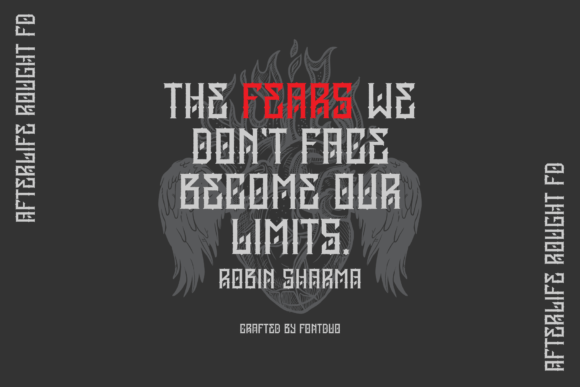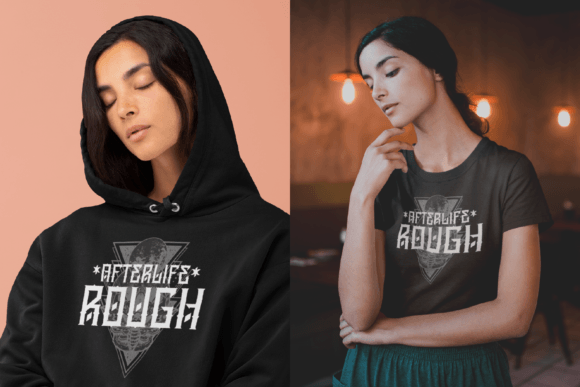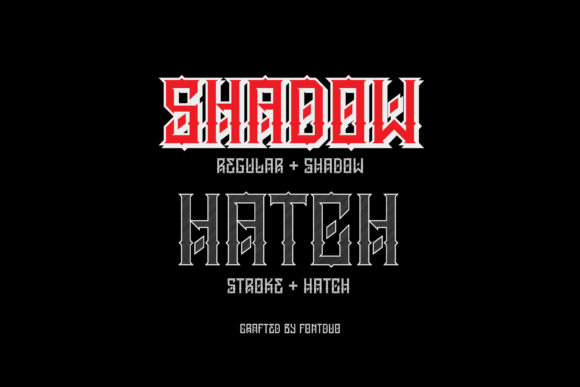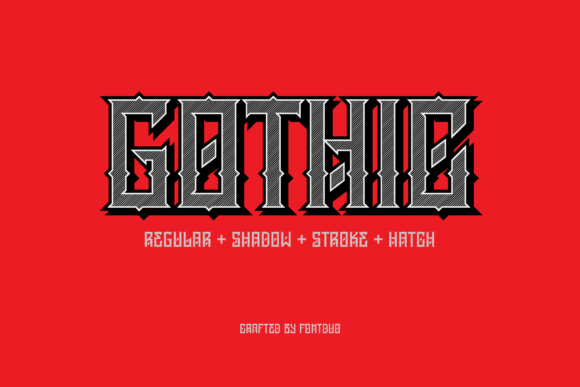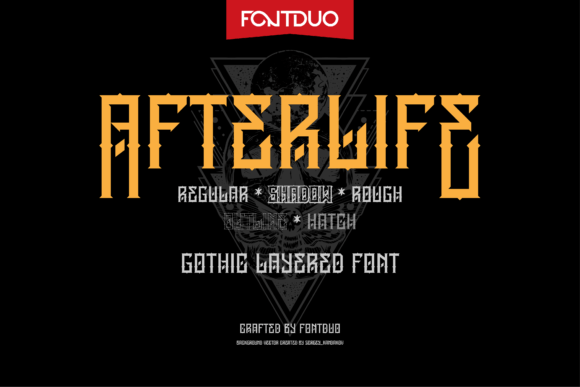
Introducing Afterlife Font: A Cool and Unique Blackletter Layered Font Family
Are you tired of using the same old fonts in your designs? Look no further! Afterlife Font is a game-changing, blackletter layered font family that is sure to take your projects to the next level. With five different styles to choose from, this font family is perfect for designers and crafters looking to add a touch of uniqueness and personality to their work.
What is Afterlife Font?
Afterlife Font is a carefully crafted, blackletter layered font family that exudes a sense of mystery and intrigue. Its unique design features intricate layers that can be customized to create a wide range of effects, making it perfect for a variety of design applications. Whether you’re working on a logo, poster, or packaging design, Afterlife Font is sure to make a statement.
Key Features of Afterlife Font
- 5 Different Styles: Afterlife Font comes with five different styles to choose from, giving you the flexibility to experiment with different looks and feels.
- Blackletter Layered Design: The font’s blackletter design features intricate layers that can be customized to create a unique look that’s all your own.
- High-Quality Design: The font is designed with high-quality craftsmanship in mind, ensuring that it looks great in any design application.
Why Choose Afterlife Font?
So why choose Afterlife Font over other fonts on the market? For starters, its unique blackletter layered design sets it apart from other fonts, making it perfect for designers and crafters looking to add a touch of personality to their work. Additionally, the font’s ease of use and high-quality design make it a great choice for anyone looking to take their designs to the next level.
Design Ideas Using Afterlife Font
So what can you create with Afterlife Font? The possibilities are endless! Here are a few ideas to get you started:
- Logos: Use Afterlife Font to create a unique and memorable logo for your business or brand.
- Posters: Create eye-catching posters for events, promotions, or advertising campaigns.
- Packaging Design: Use Afterlife Font to add a touch of personality to your product packaging.
- Stationery: Create custom stationery, such as business cards, letterheads, and envelopes.
Tips and Tricks for Getting the Most Out of Afterlife Font
Here are a few tips and tricks for getting the most out of Afterlife Font:
- Experiment with Different Styles: Try out different styles to see which one works best for your design.
- Play with Layering: Experiment with layering different elements of the font to create a unique look.
- Use it with Other Fonts: Try pairing Afterlife Font with other fonts to create a unique and interesting contrast.
In conclusion, Afterlife Font is a cool and unique blackletter layered font family that is sure to take your designs to the next level. With its five different styles, ease of use, and high-quality design, it’s perfect for designers and crafters looking to add a touch of personality to their work. So why wait? Download Afterlife Font today and see the amazing results for yourself!